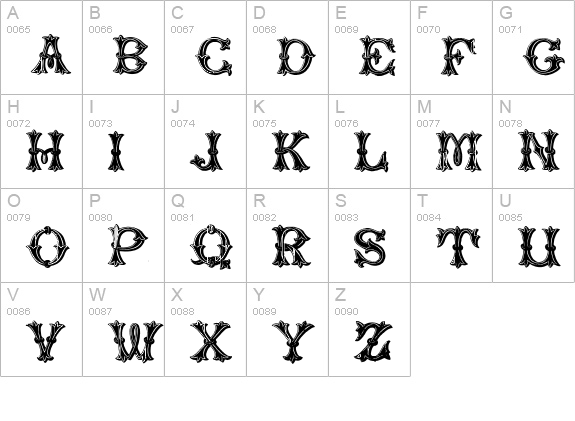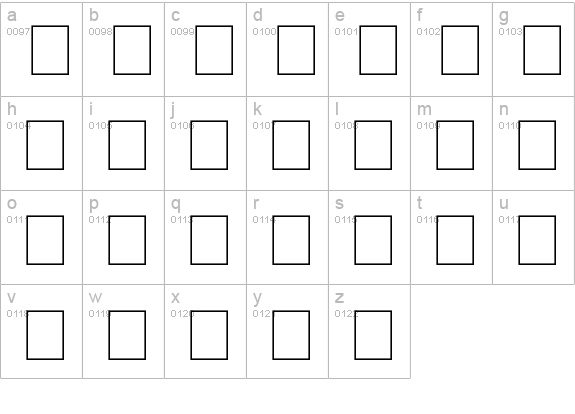
TrefoilCapitals is an exquisite and versatile font that seamlessly blends elegance with a touch of whimsy. This unique typeface features beautifully crafted capital letters adorned with delicate trefoil motifs, adding a sense of charm and sophistication to any design project. The timeless appeal of TrefoilCapitals lies in its careful balance of classic and contemporary elements. The smooth curves and intricate details of each letter give it a refined and polished appearance, while the playful trefoil embellishments inject a sense of joy and playfulness into the overall design. Whether you are working on a logo, branding materials, invitations, or any other creative endeavor, TrefoilCapitals offers endless possibilities. Its versatility allows it to effortlessly adapt to various design styles, from elegant and refined to modern and bold. With each letter meticulously designed to perfection, this font ensures that your text stands out with its distinctive and eye-catching appearance. What makes TrefoilCapitals even more appealing is that it is freely available to download at FontsMarket.com. This means that you can easily access this font without any cost, allowing you to unleash your creativity without worrying about budget constraints. Its availability on FontsMarket.com ensures a hassle-free experience, providing you with a convenient and reliable source for all your font needs. Embrace the beauty and versatility of TrefoilCapitals and elevate your designs to new heights. Whether you are a professional designer or a passionate hobbyist, this font is sure to inspire and captivate. Download TrefoilCapitals today from FontsMarket.com and let your imagination take flight.